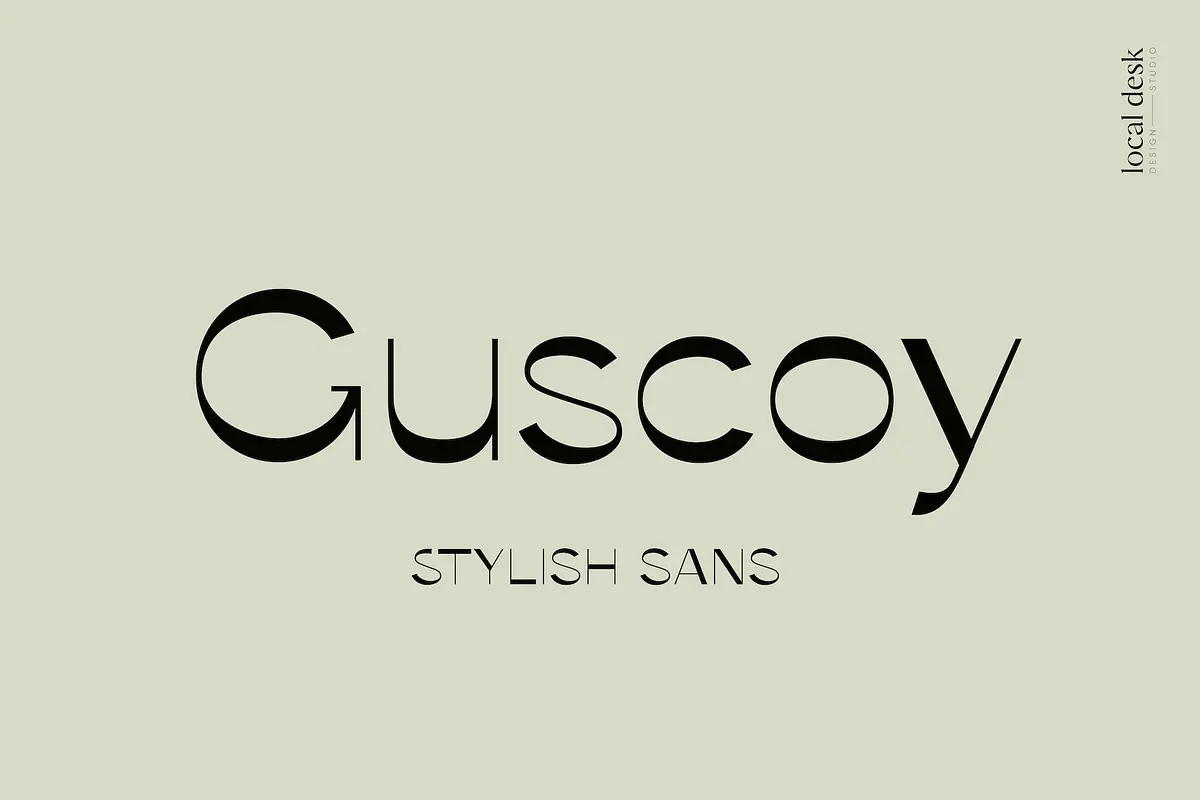
The Guscoy – Stylish, High Contrast Sans Font Free Download is a modern and striking typeface that combines high contrast with clean, geometric lines. Perfect for branding, logos, editorial design, posters, and websites, this font brings a bold and stylish feel to any project.
With its sharp contrasts between thick and thin strokes, Guscoy creates a sophisticated yet contemporary look. It includes uppercase and lowercase letters, numbers, punctuation, and multilingual support, making it a versatile choice for a wide range of creative applications.